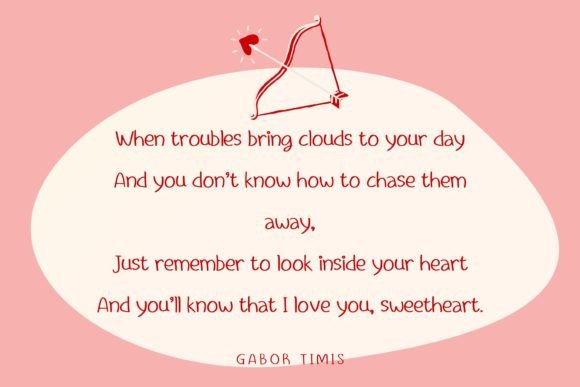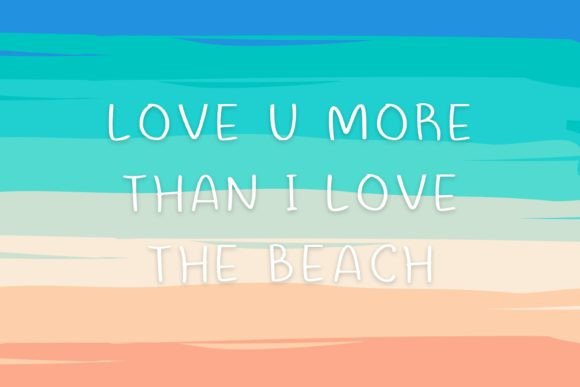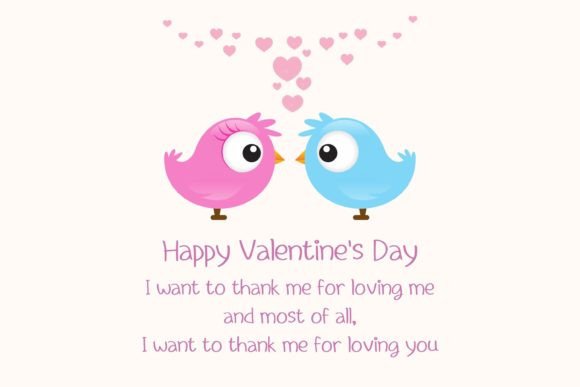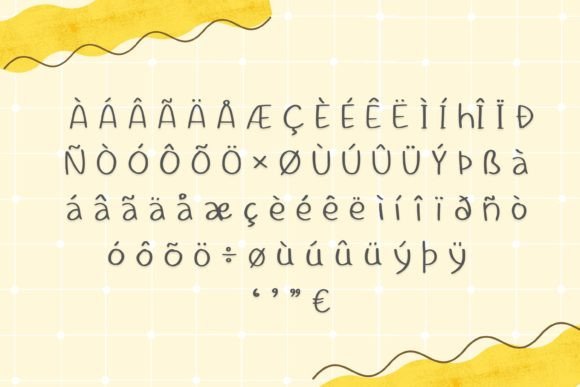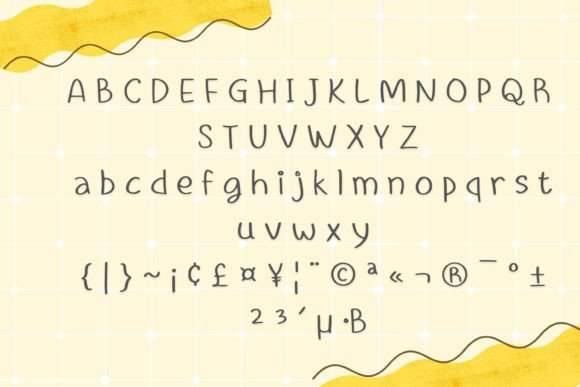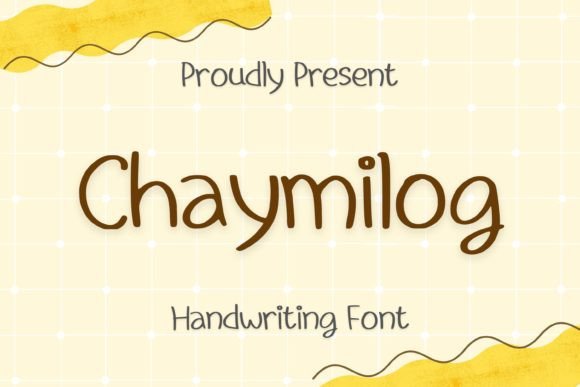
Introducing Chaymilog Font: The Perfect Handwritten Font for Chalkboard Quotes and Teaching Materials
Are you a designer, crafter, or educator looking for a font that can add a touch of authenticity to your chalkboard quotes or teaching materials? Look no further than Chaymilog Font! This cute and simple-lettered handwritten font is perfect for creating realistic and engaging designs that will capture your audience’s attention.
What is Chaymilog Font?
Chaymilog Font is a carefully crafted handwritten font that mimics the look of traditional chalkboard writing. Its authentic and rustic feel makes it ideal for creating chalkboard quotes, teaching materials, and other designs that require a personal touch. The font’s simplicity and legibility ensure that your message is conveyed clearly, making it perfect for educational materials, posters, and social media graphics.
Key Features of Chaymilog Font
- Cute and Simple Lettering: Chaymilog Font features a delightful and straightforward lettering style that is easy to read and understand.
- Authentic Look: The font’s design is inspired by traditional chalkboard writing, giving it a genuine and nostalgic feel.
- Perfect for Chalkboard Quotes: Chaymilog Font is optimized for creating chalkboard quotes, making it a great choice for designers and crafters who want to add a touch of whimsy to their designs.
- Suitable for Teaching Materials: The font’s clarity and simplicity make it an excellent choice for educational materials, such as worksheets, presentations, and handouts.
Benefits of Using Chaymilog Font
Using Chaymilog Font in your designs can have several benefits, including:
- Enhanced Visual Appeal: The font’s unique and charming design will add a touch of personality to your designs, making them more engaging and attention-grabbing.
- Improved Readability: Chaymilog Font is designed to be easy to read, ensuring that your message is conveyed clearly and effectively.
- Time-Saving: The font’s simplicity and legibility save you time and effort in designing and editing your materials.
- Versatility: Chaymilog Font can be used in a variety of design projects, from chalkboard quotes to teaching materials, social media graphics, and more.
How to Use Chaymilog Font in Your Designs
Using Chaymilog Font in your designs is easy! Here are some tips to get you started:
- Pair it with Other Fonts: Combine Chaymilog Font with other fonts to create a unique and visually appealing design.
- Use it for Headings and Titles: Chaymilog Font is perfect for headings and titles, adding a touch of personality to your designs.
- Add Graphics and Illustrations: Combine Chaymilog Font with graphics and illustrations to create engaging and informative designs.
Chaymilog Font is a versatile and charming handwritten font that is perfect for designers, crafters, and educators looking to add a touch of authenticity to their chalkboard quotes and teaching materials. Its simplicity, legibility, and authentic look make it an excellent choice for a variety of design projects. Try Chaymilog Font today and take your designs to the next level!
Whether you’re creating educational materials, social media graphics, or chalkboard quotes, Chaymilog Font is the perfect choice. Its unique and charming design will add a touch of personality to your designs, making them more engaging and attention-grabbing. So why wait? Download Chaymilog Font now and start creating stunning designs that will capture your audience’s attention!